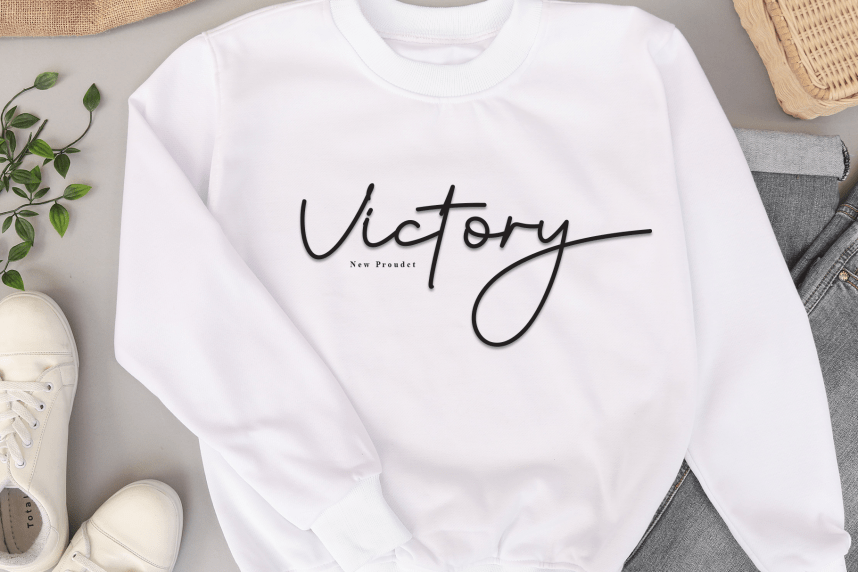
Hearthy – Light Handwritten Font
Hearthy – Light Handwritten Font, special creative products for you, our products will give you an extraordinary experience. the latest style letters are perfect for wall displays, wedding invitations, social media post logos, advertisements, product packaging, product designs, labels, photography, watermarks, invitations, stationery, and any project that requires taste handwriting.